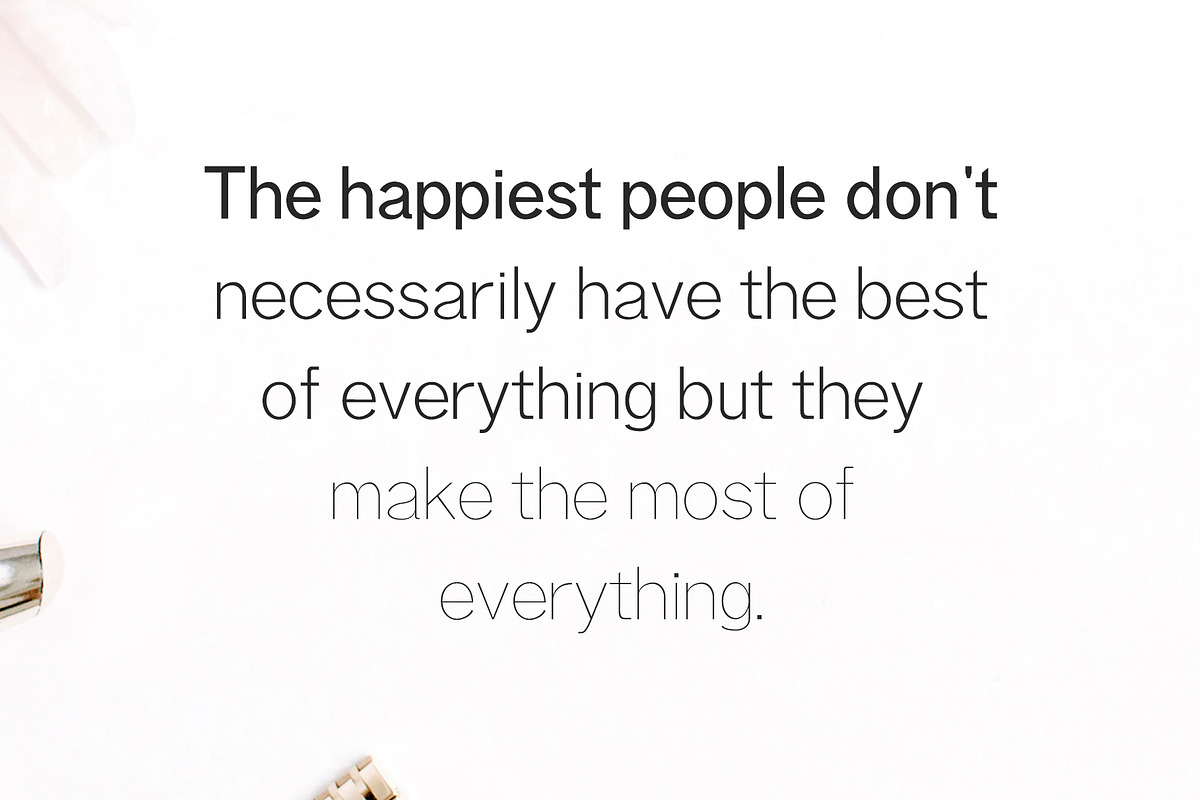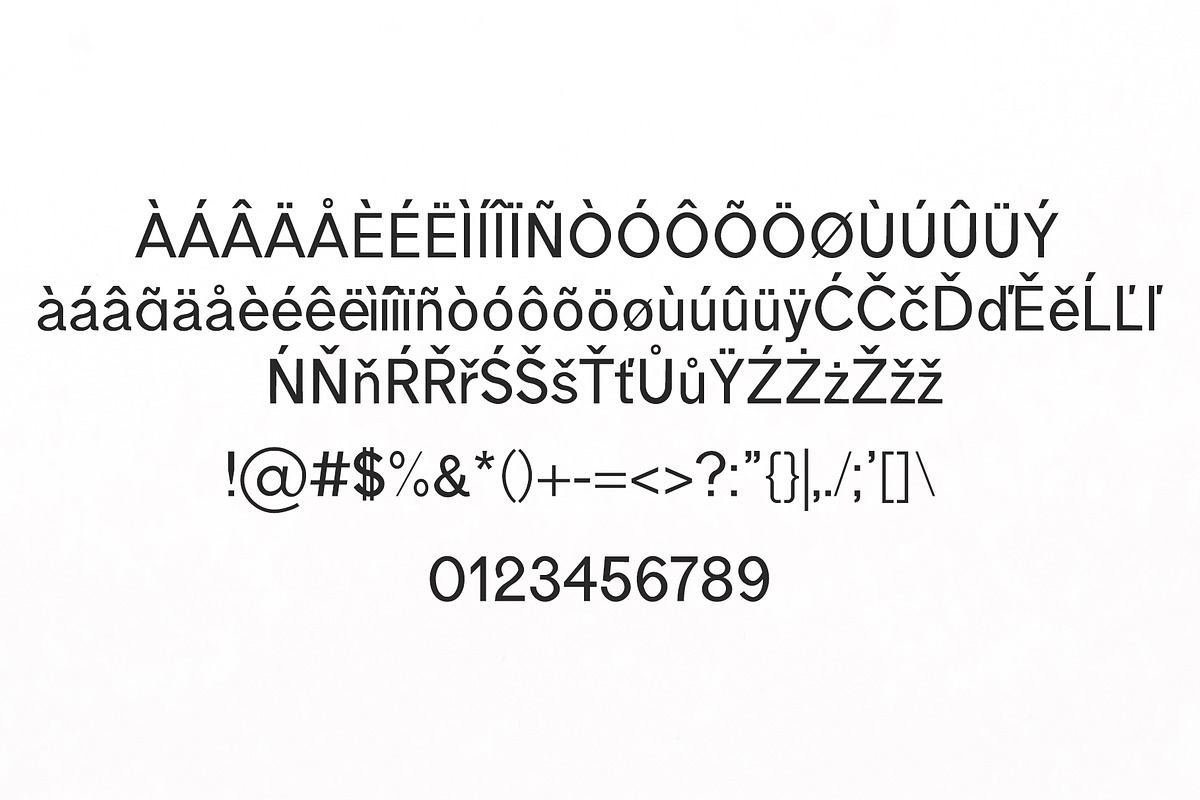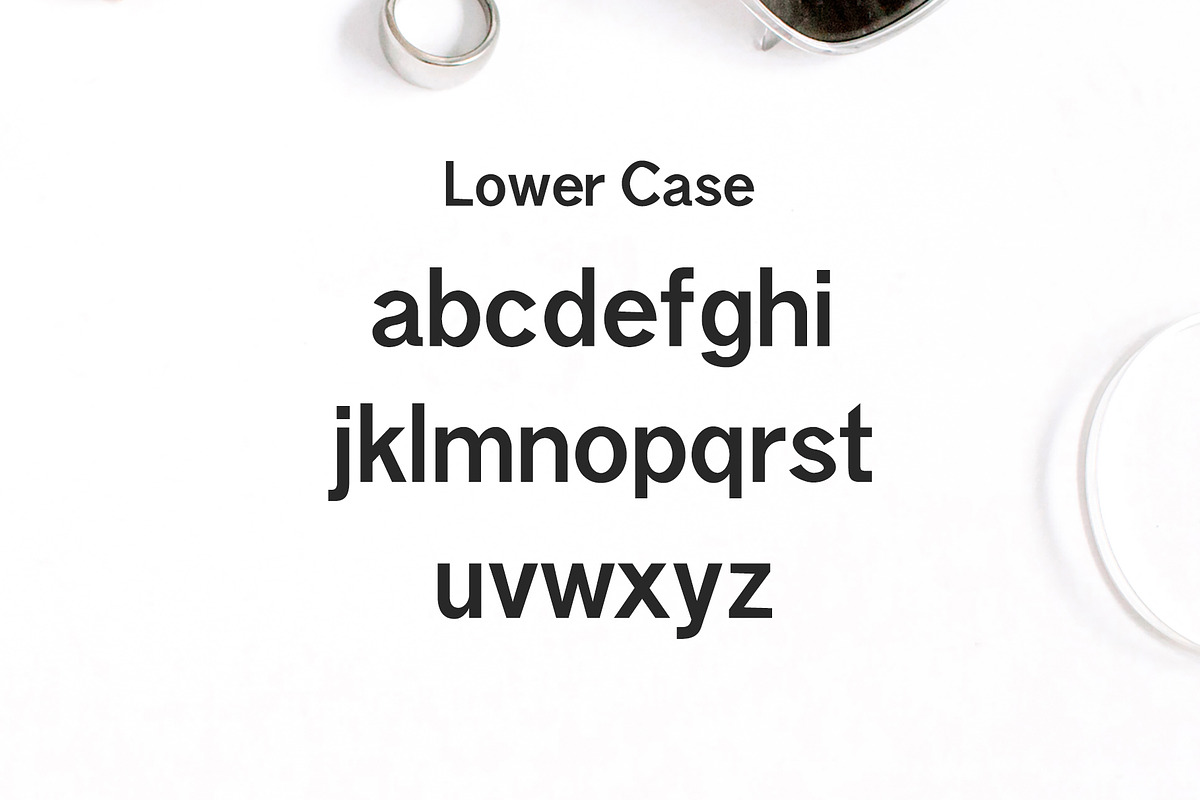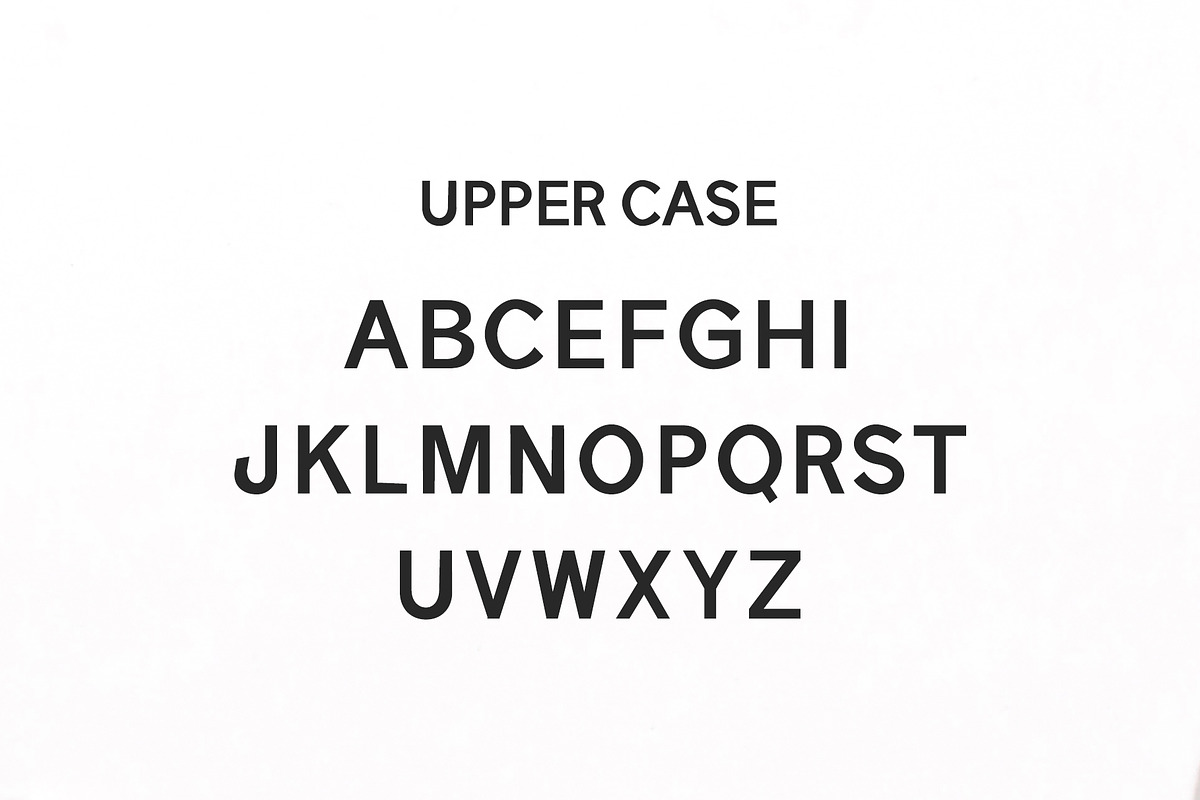
Aariel Sans Serif 7 Font Family Pack
Aariel Sans Serif 7 Font Family Pack by Creativetacos is a font selected for branding, posters, packaging, typography.
- Regular, Thin, Light, Black, Outline, Bold, and Extra Bold Weights
Why Aariel Sans Serif 7 Font Family Pack is worth a look
Aariel Sans Serif 7 Font Family Pack by Creativetacos fits naturally into Branding, posters, packaging, typography.